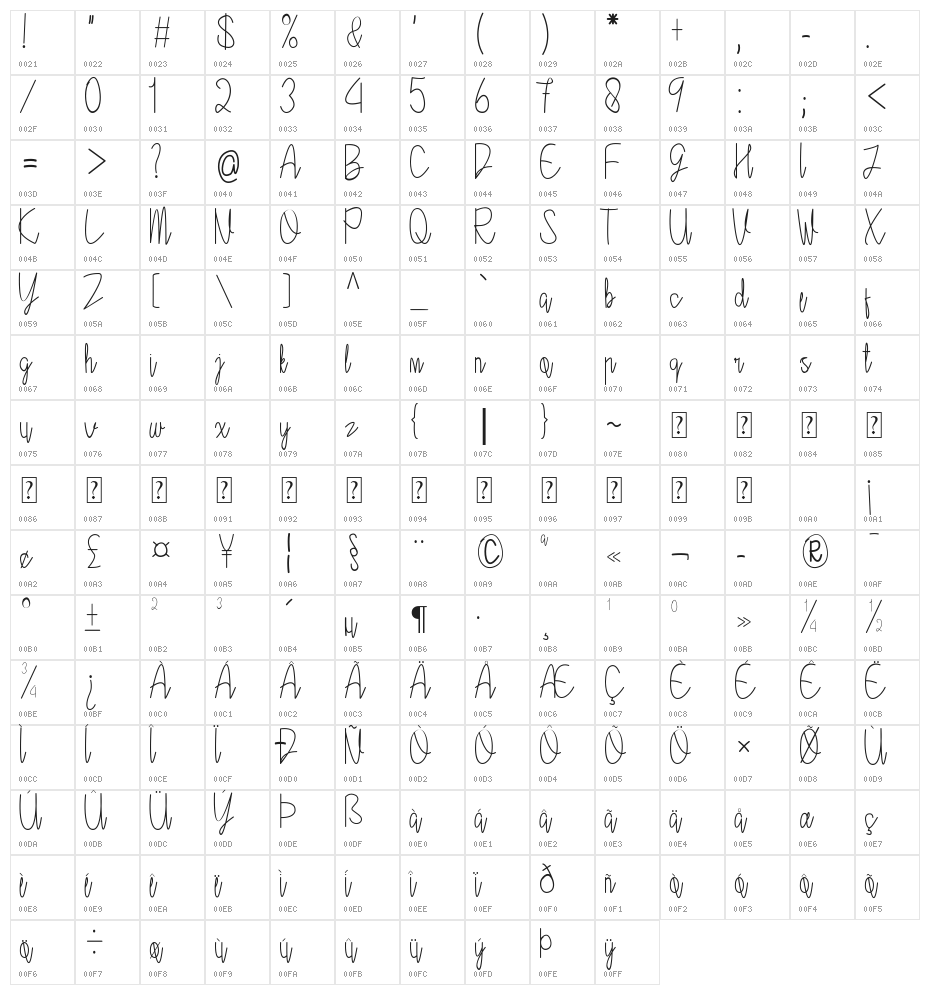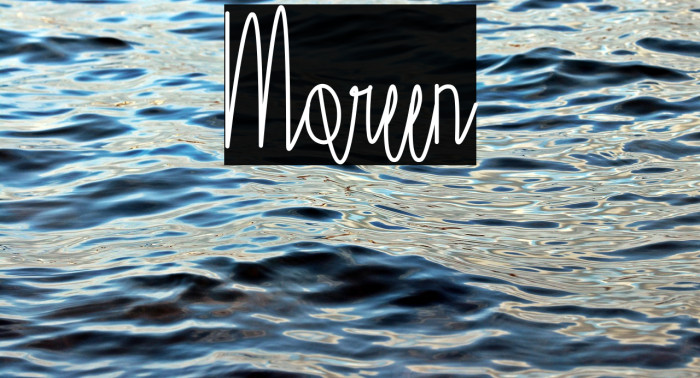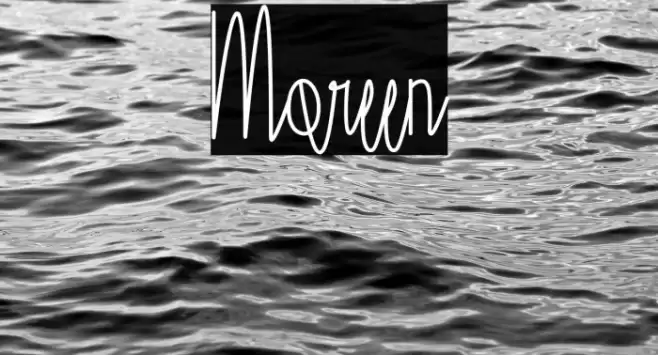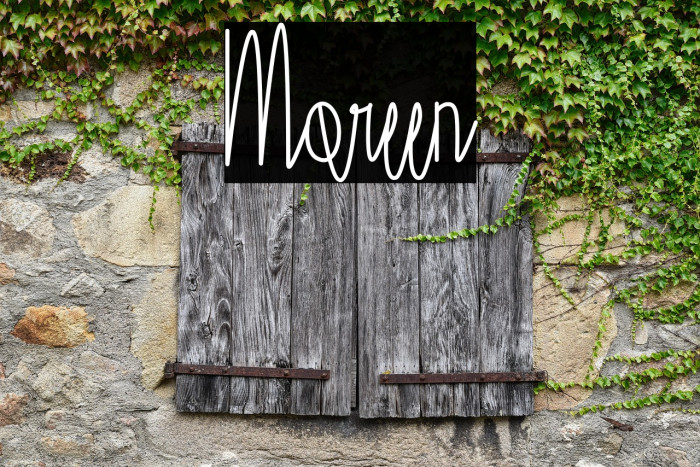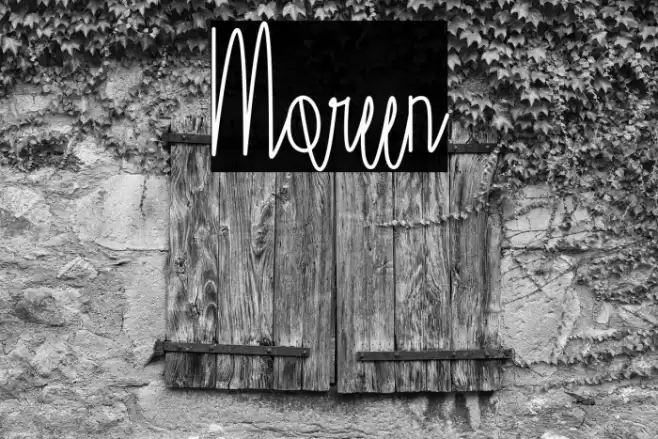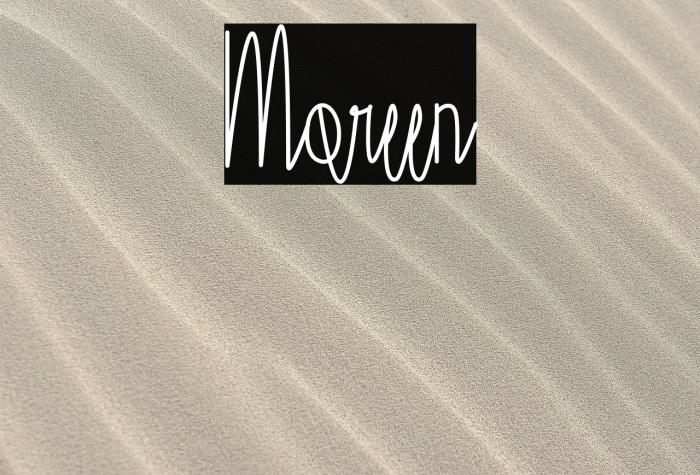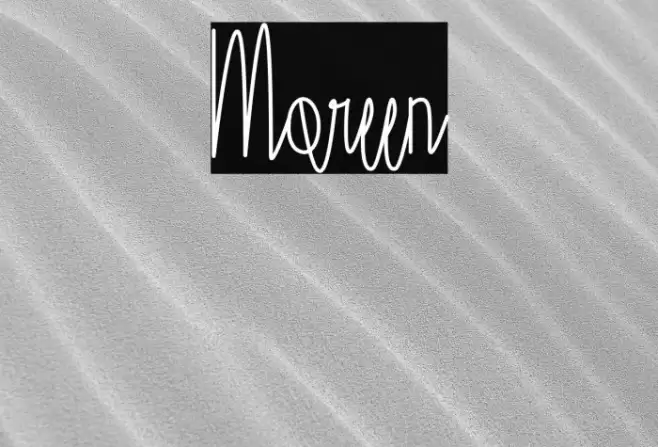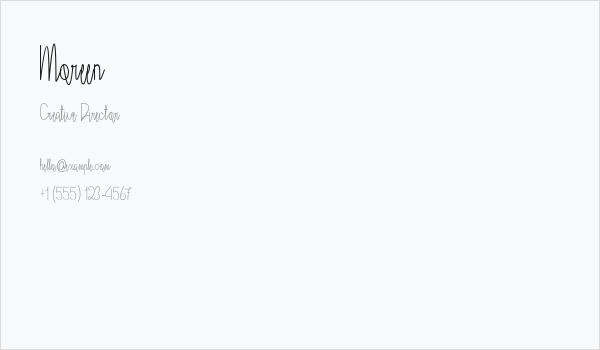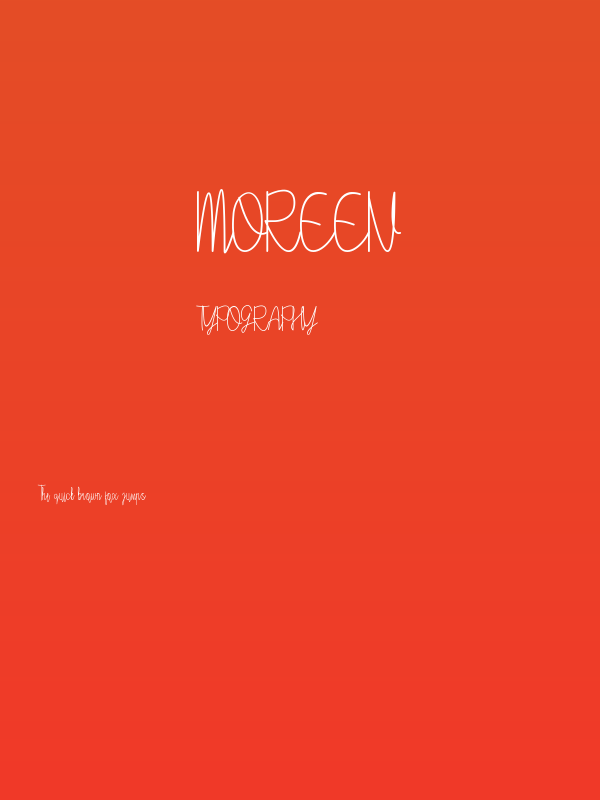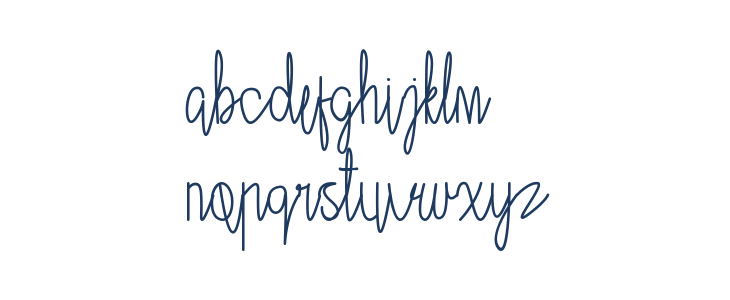
Moreen Font
Moreen Description
This font features a playful and whimsical handwritten style, characterized by its tall, narrow letters and flowing curves. The uppercase and lowercase letters maintain a consistent height, giving it a cohesive look. The strokes are thin and delicate, adding an airy feel to the text. The numbers and special characters follow the same style, ensuring uniformity across all elements. This font's unique appearance makes it stand out, while still being legible and versatile for various design needs.